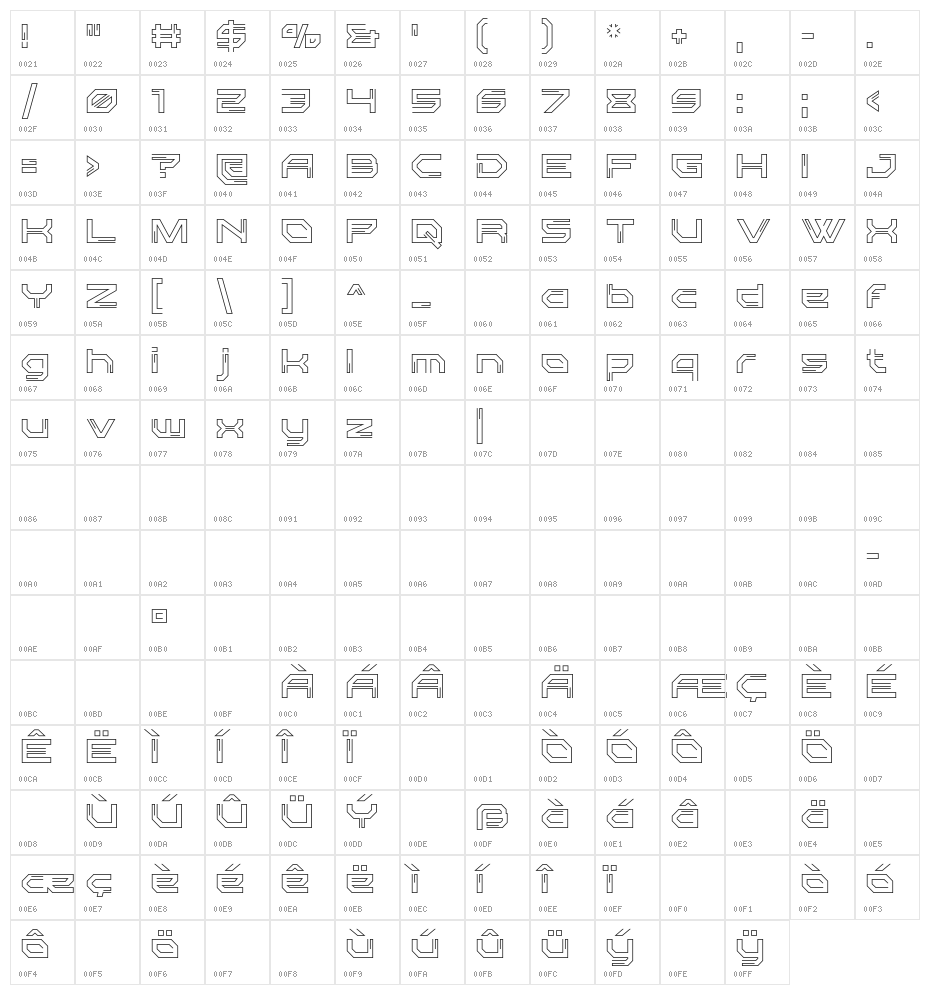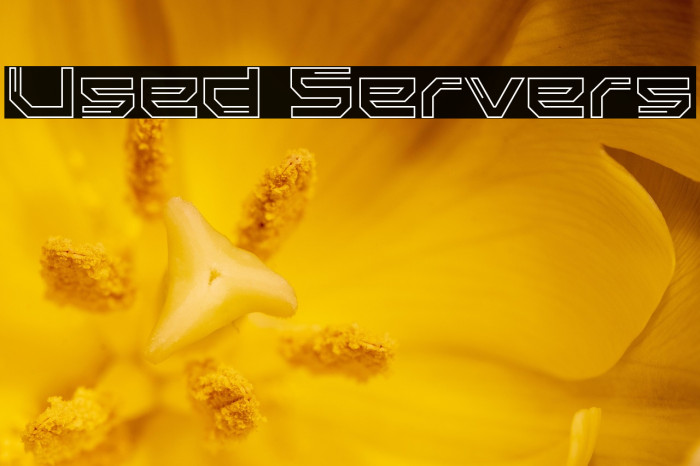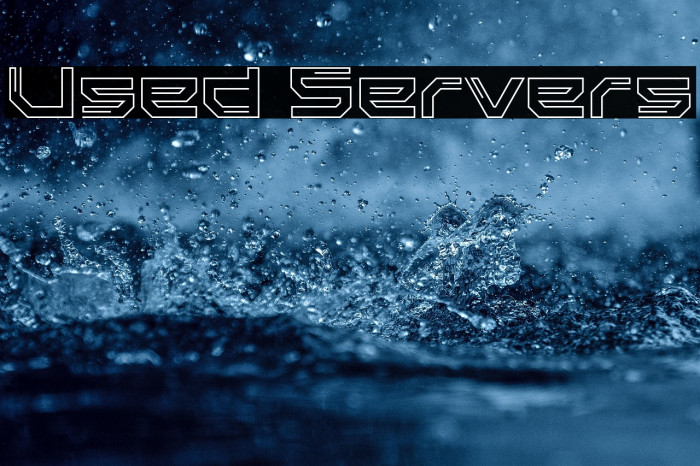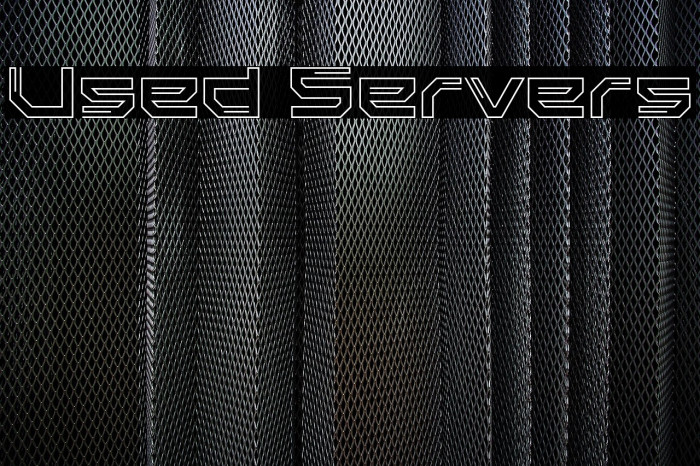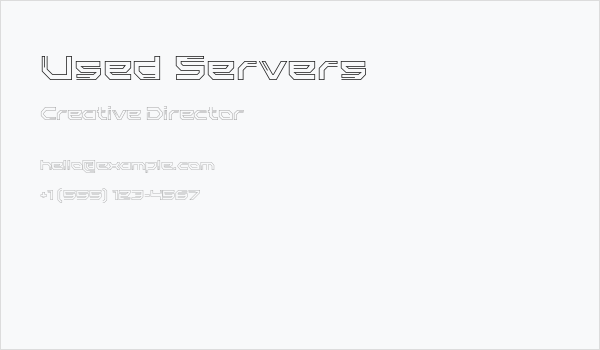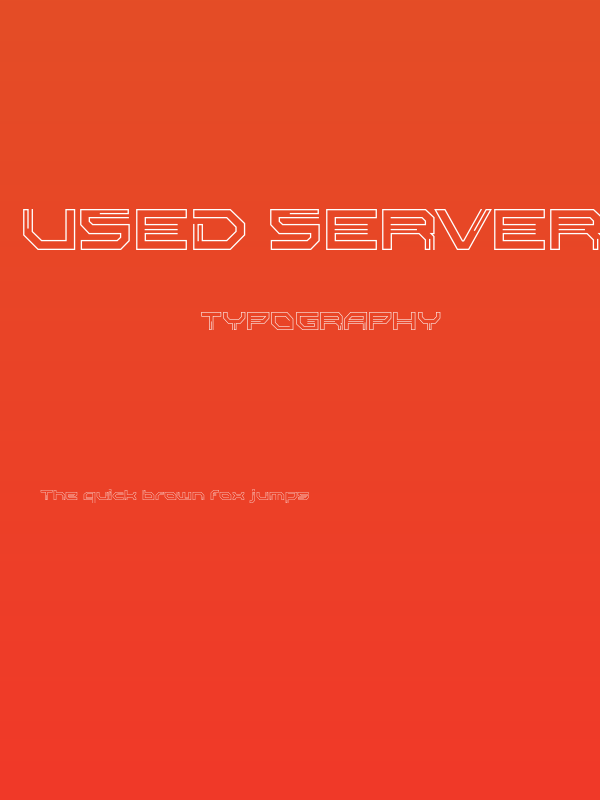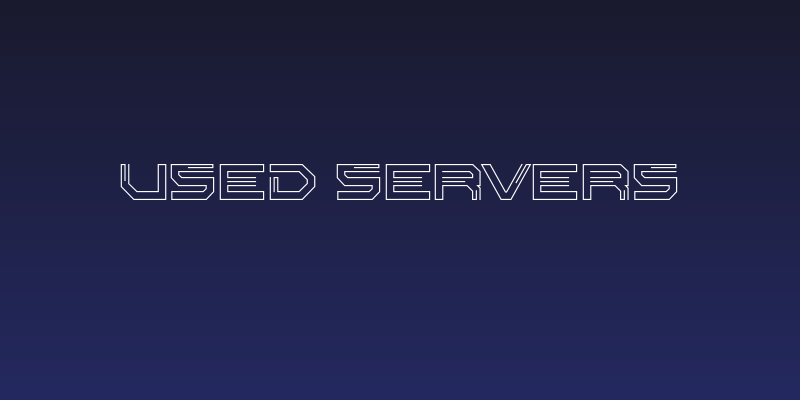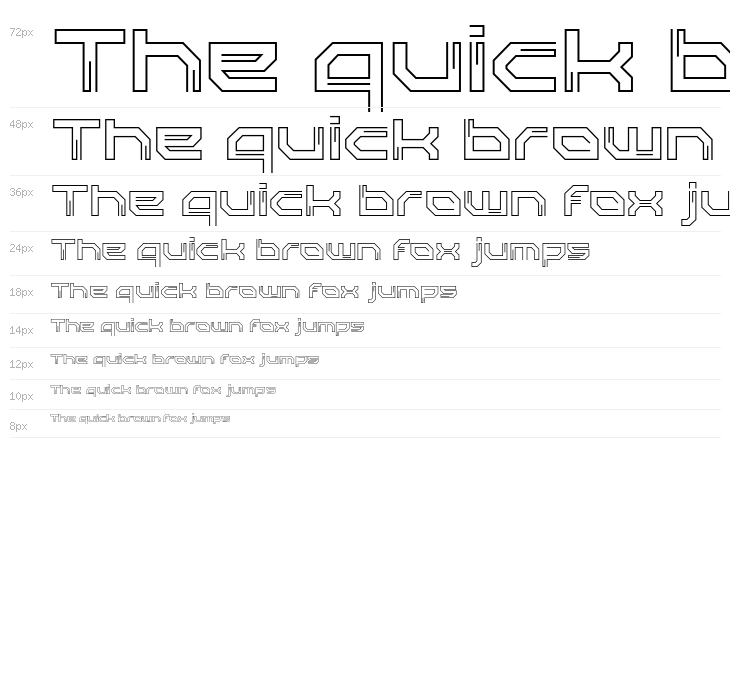
Used Servers Font
Used Servers Description
This font features a geometric and futuristic design, characterized by its angular and segmented letterforms. The characters are outlined with a double-line effect, giving them a three-dimensional appearance. The uppercase and lowercase letters maintain a consistent style, with sharp edges and a technical, mechanical feel. The numerals and special characters follow the same design principles, ensuring uniformity across the typeface. This font's unique structure makes it stand out, offering a modern and edgy aesthetic suitable for various creative applications.
| Overall Style | Futuristic, Technical |
| Proposed Projects | Ideal for technology branding, sci-fi posters, video game titles, and digital art projects. |